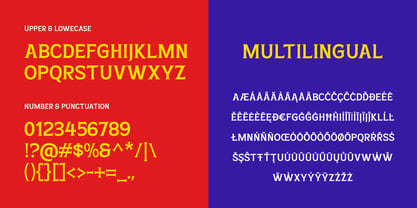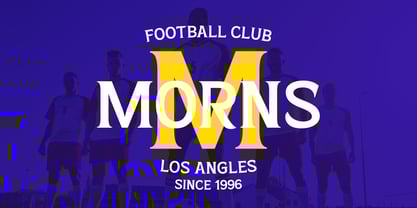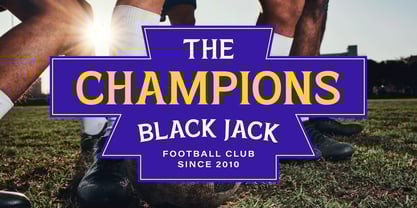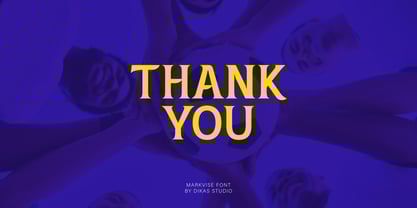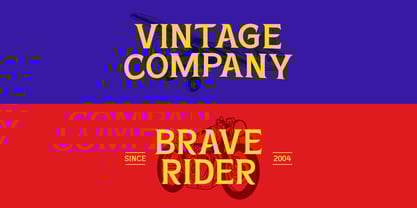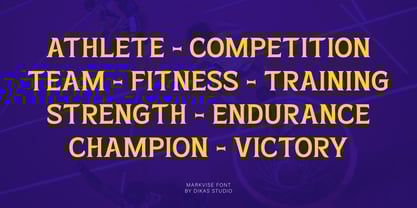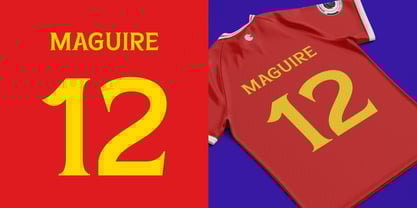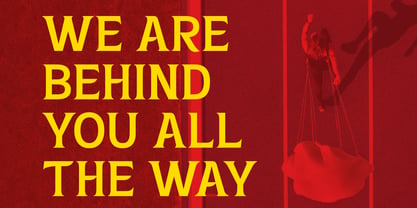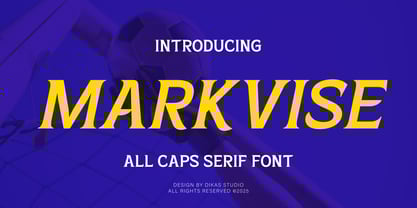
Markvise
by Dikas Studio
The Markvise Font Family was designed by Andika Setiawan and published by Dikas Studio. Markvise contains 2 styles and family package options.
Markvise is a bold serif font inspired by vintage sports design. It combines strong, confident letterforms with classic serif details, creating a look that feels both retro and powerful. Available in Regular and Oblique styles, Markvise delivers versatility for logos, posters, jerseys, and headlines that need a touch of vintage athletic spirit. Perfect for capturing the timeless energy of old-school sports aesthetics.
Designers: Andika Setiawan
Publisher: Dikas Studio
Foundry: Dikas Studio
Design Owner: Dikas Studio